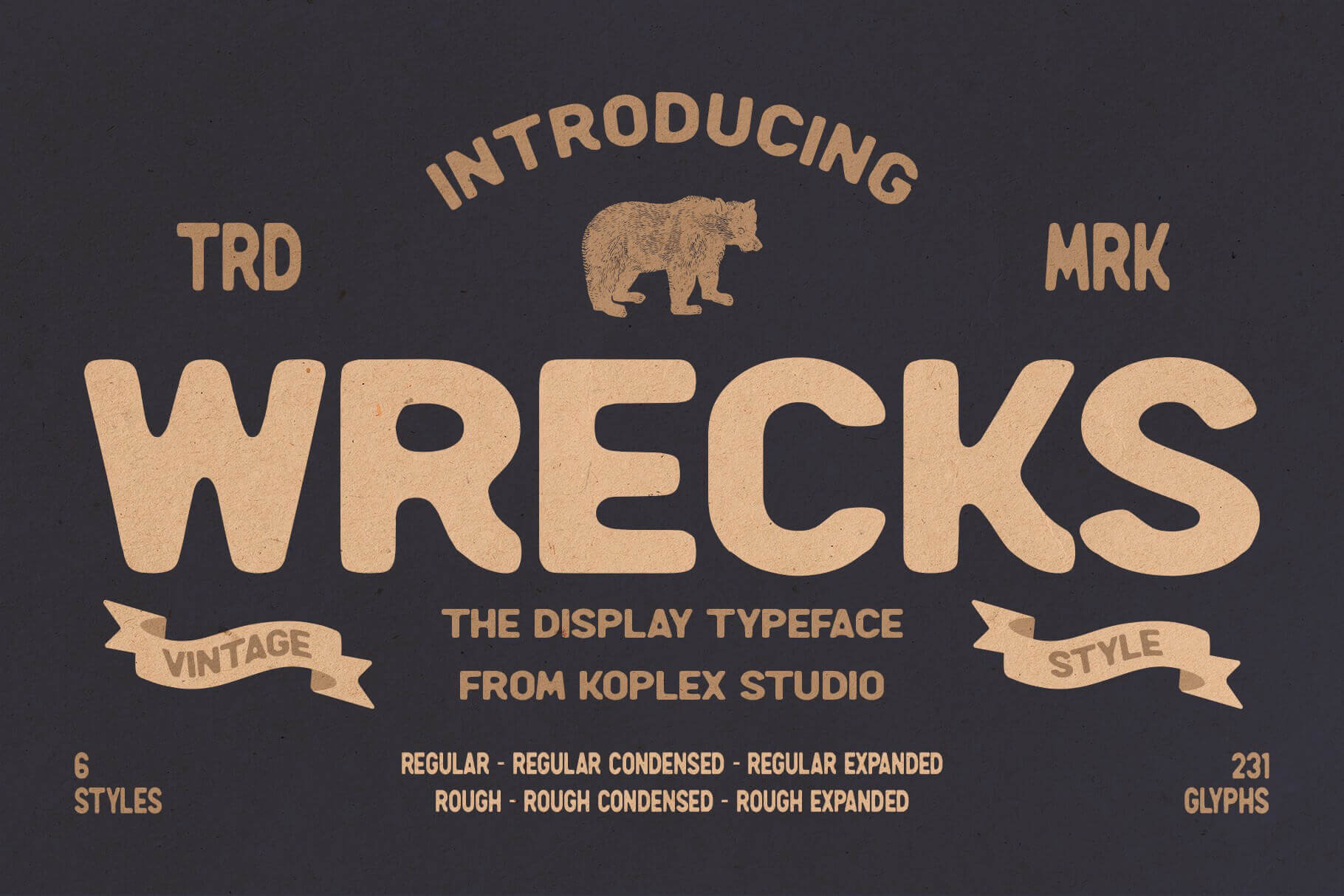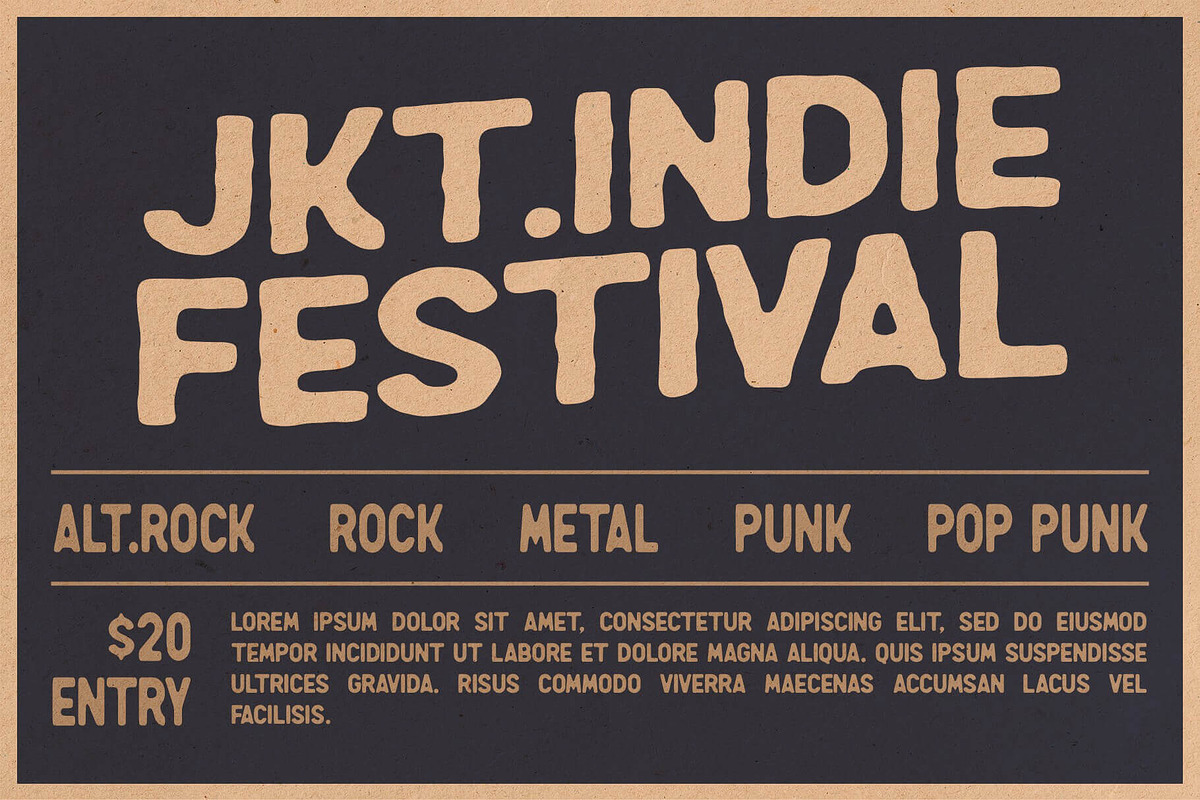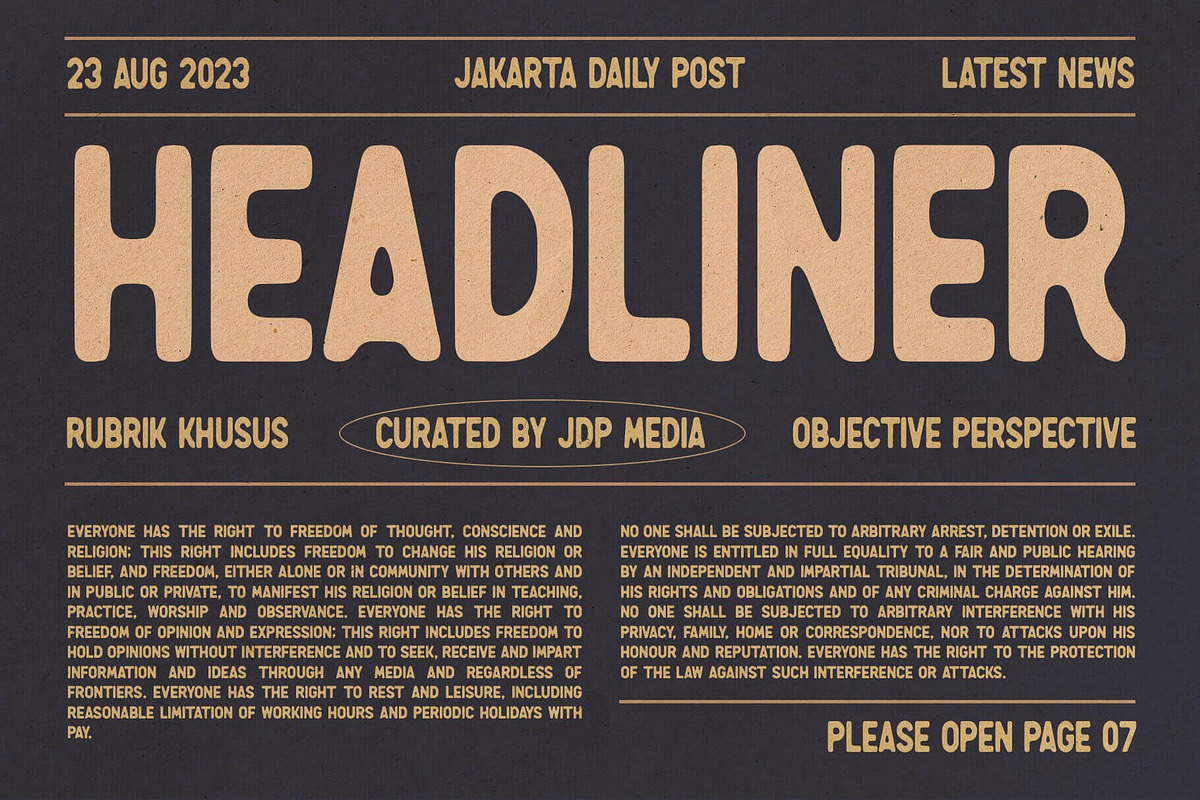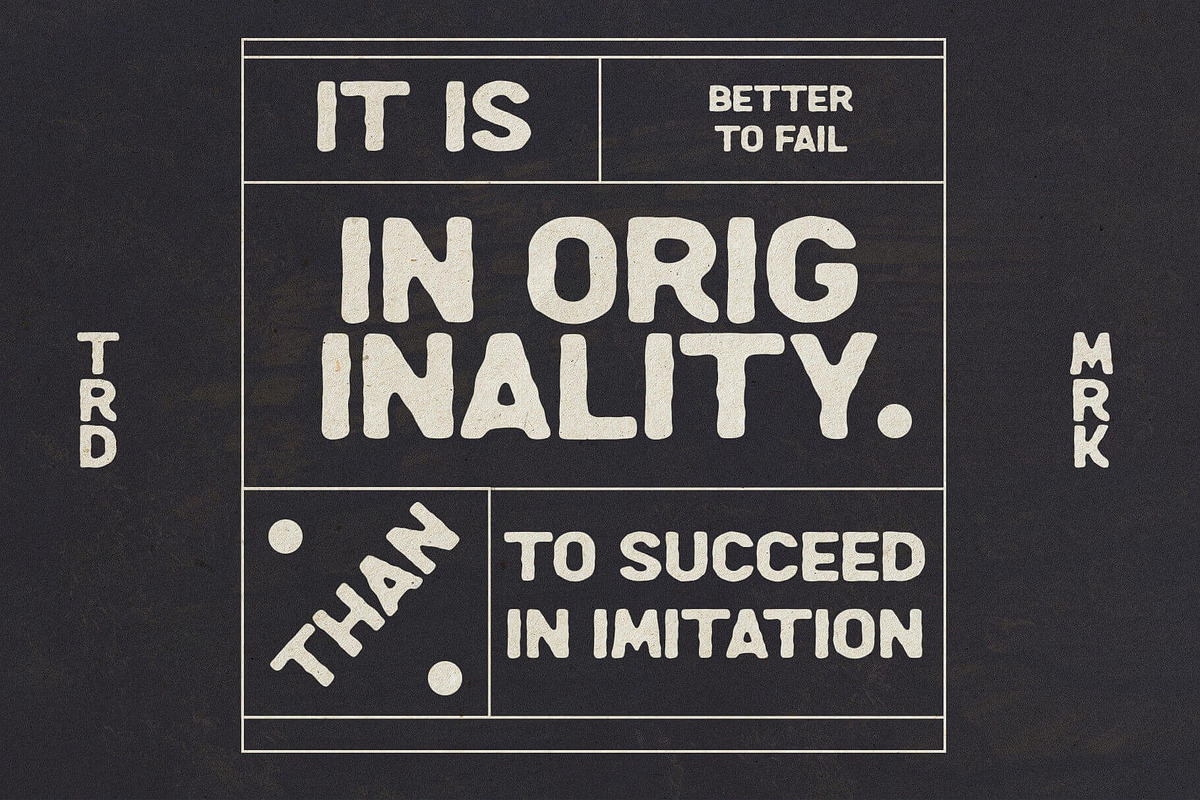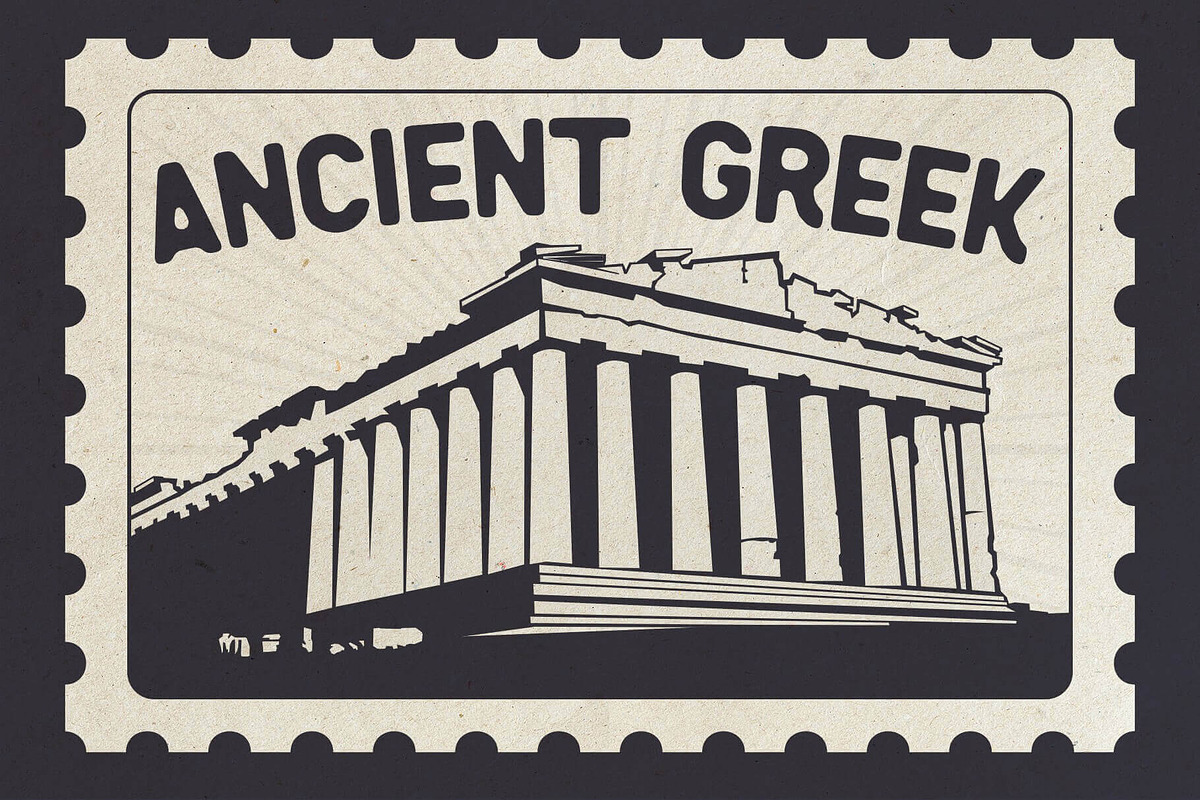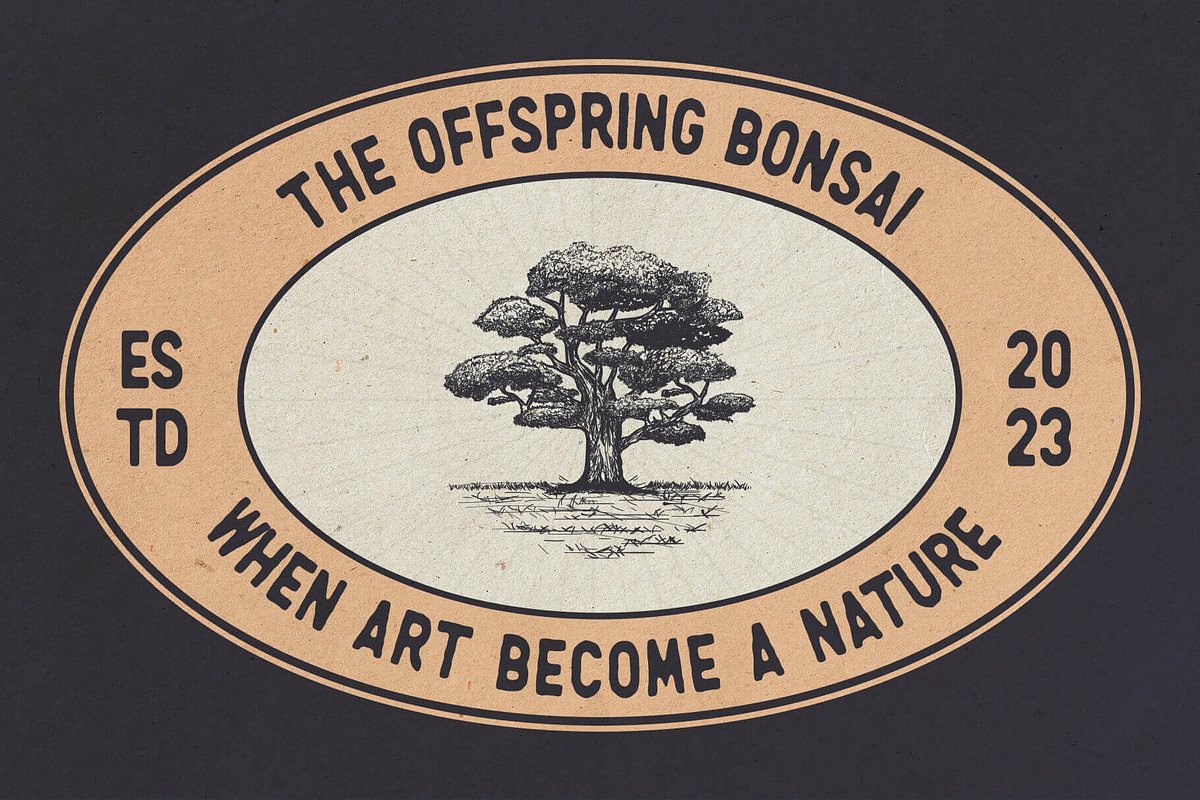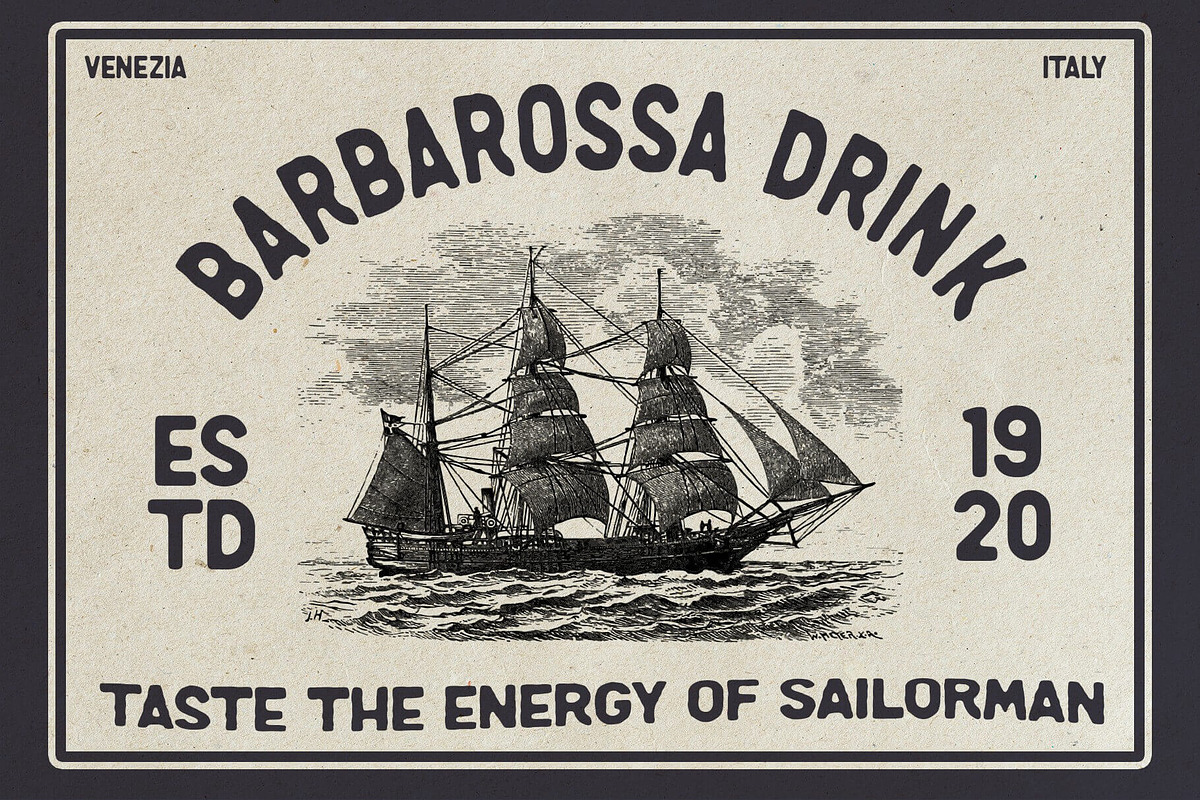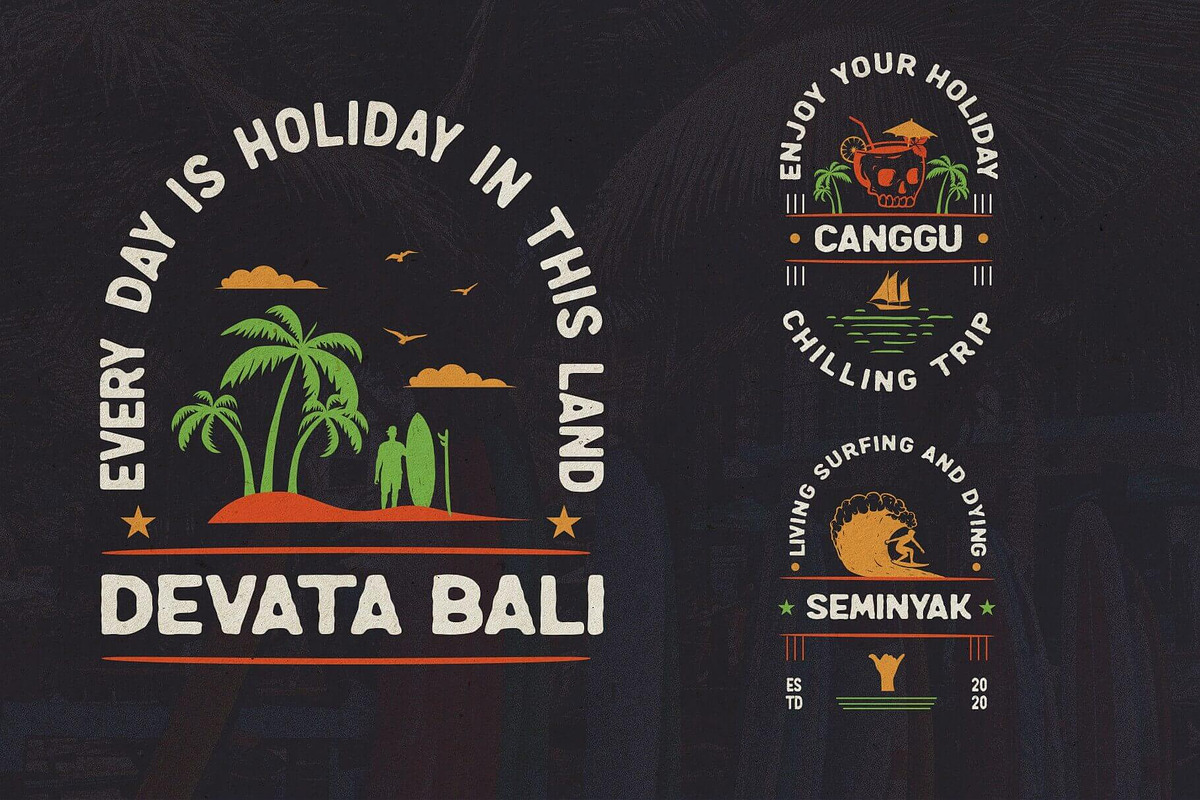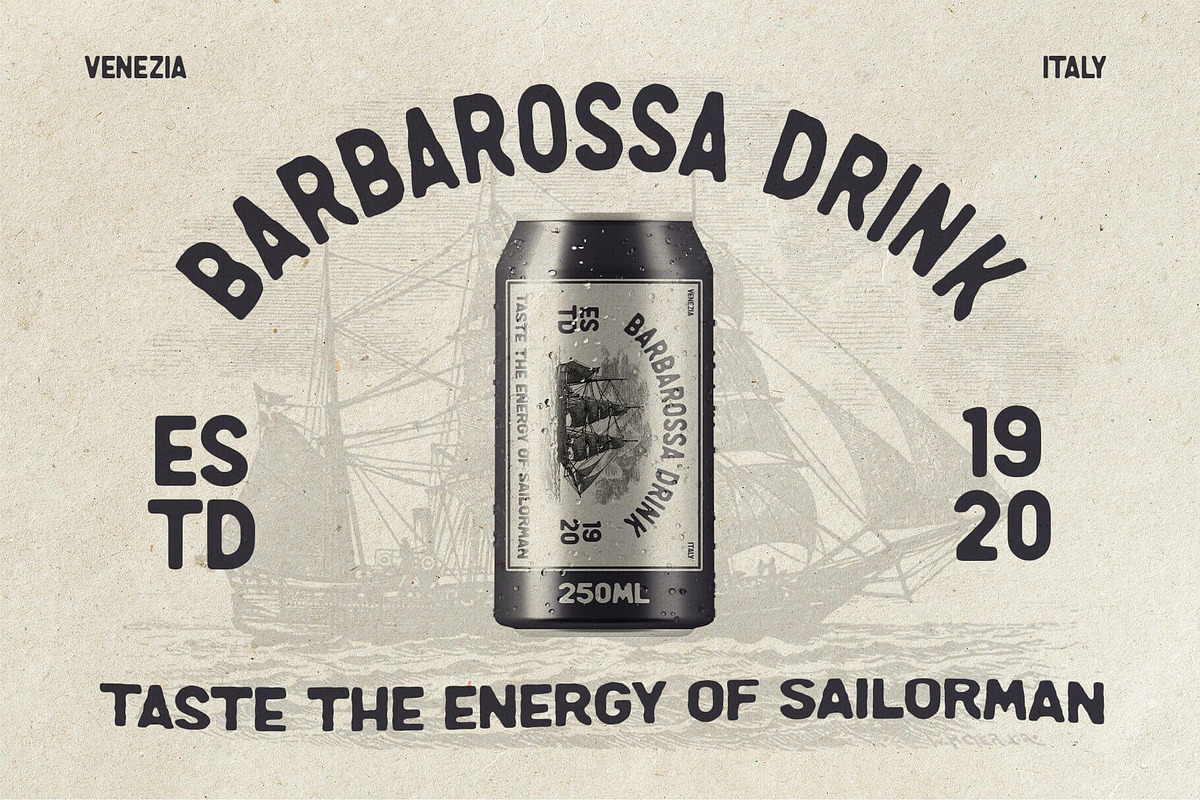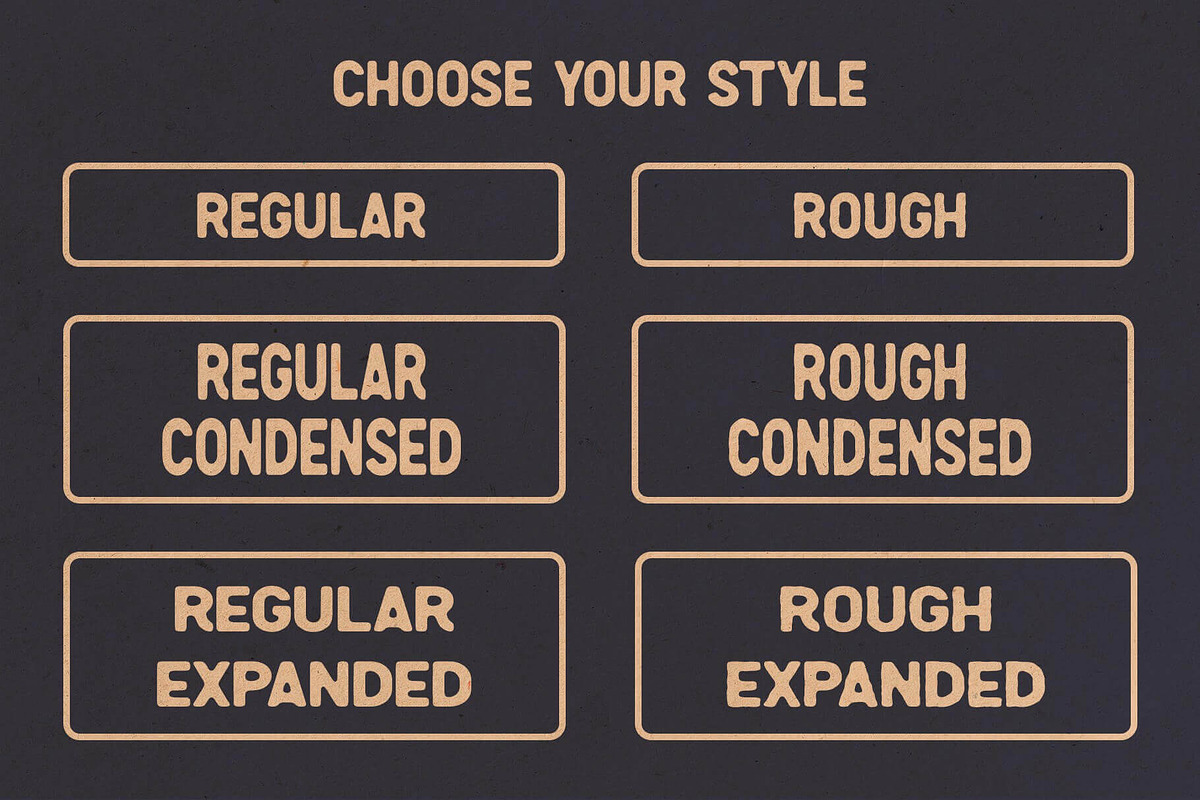
Wrecks - Vintage Font
Wrecks - Vintage Font is a captivating typeface that effortlessly transports you back in time with its nostalgic charm. This font exudes an aura of authenticity and retro appeal, making it the perfect choice for a wide range of creative projects. Whether you're designing a classic poster, crafting a vintage-inspired logo, or working on a retro-themed website, Wrecks is the ideal companion.
Wrecks - Vintage Font elegance and carefully crafted details bring a sense of sophistication to any design, making it suitable for everything from branding and packaging to invitations and signage. With Wrecks - Vintage Font, you can effortlessly infuse your creations with a touch of old-world charm and timeless style.
- Nostalgic Elegance: Wrecks encapsulates the essence of vintage typography, evoking a sense of classic sophistication that resonates with a diverse audience.
- Versatile Application: Whether it's branding, packaging, invitations, posters, or social media graphics, Wrecks adapts seamlessly to various design contexts, elevating your project with its distinctive character.
- Distinctive Character Set: The font boasts a comprehensive character set, including uppercase and lowercase letters, numerals, punctuation, and special characters. This diversity empowers you to craft unique and personalized designs.
- Impeccable Craftsmanship: Wrecks is meticulously designed with attention to detail, ensuring precise kerning and optimal readability. Its smooth, flowing lines add a touch of refinement to any composition.
- Timeless Appeal: This font is a timeless investment that will remain relevant and captivating for years to come, making it a staple in your design toolkit.
Elevate your designs with Wrecks, where vintage meets contemporary in perfect harmony. Unleash your creativity and let Wrecks bring a touch of nostalgia to your next project. Experience the allure of classic typography with a modern twist.
- Include Styles : Regular, Regular Condensed, Regular Expanded, Rough, Rough Condensed, Rough Expanded.
- Support for 68 languages.